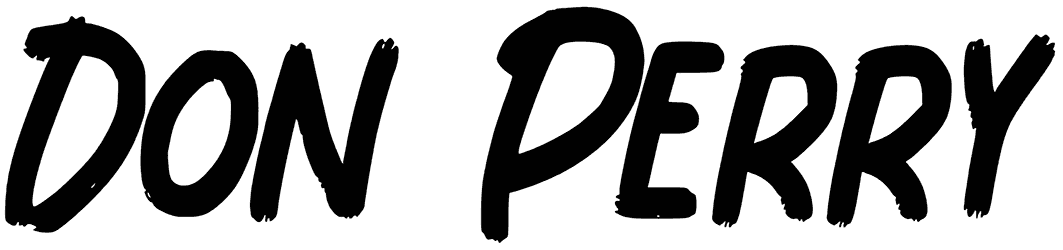
Don Perry Font
As a nice choice for many designs, a soft and modern handwritten font will be a nice help to communicate well with your audience. The Don Perry font is one of these options that can be a perfect selection for many layouts, like a sports event poster or others.
This script font doesn’t support lowercase letters and some numbers, but it could serve you as a good item for titles or special words.